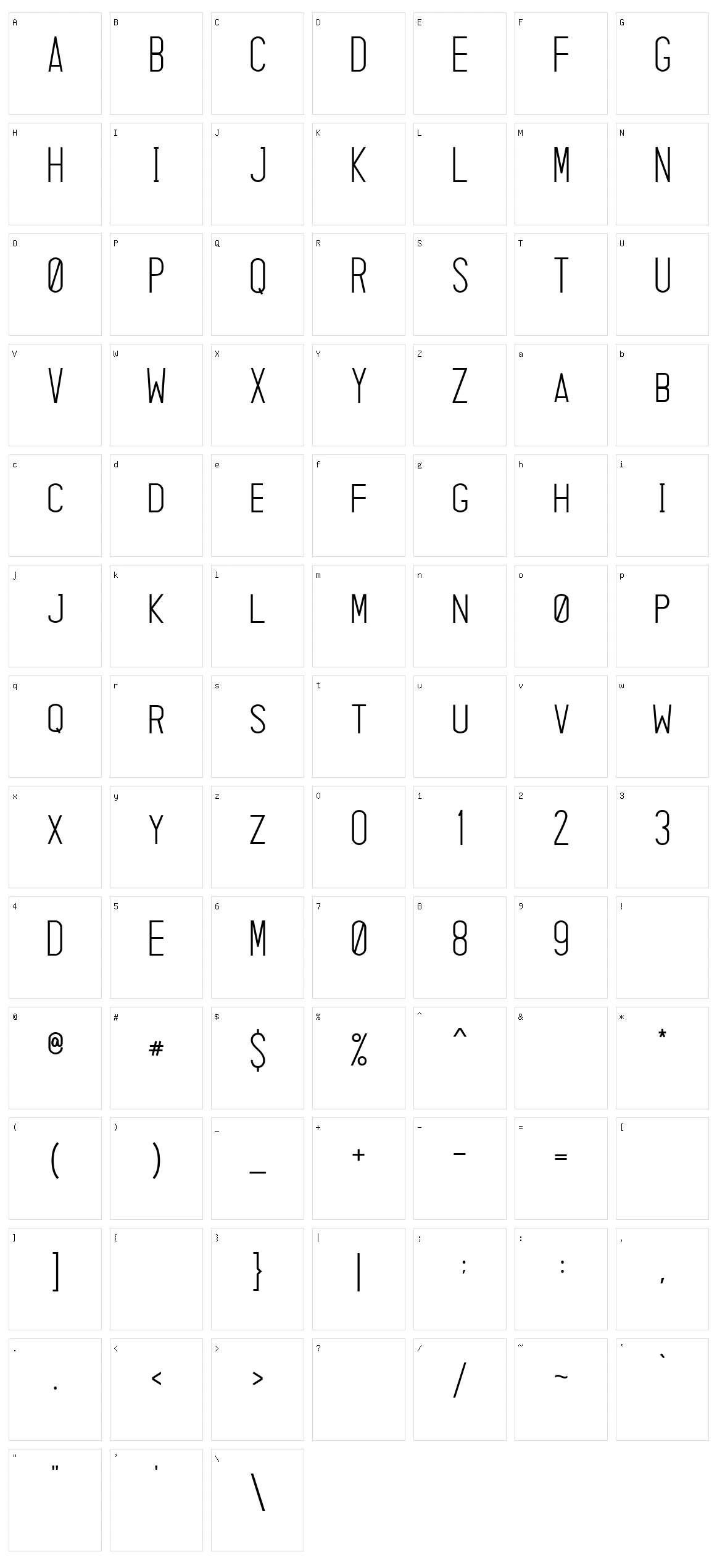
The free font Zeneca is carefully designed by Almaz Studio, showcasing a thoughtful balance of creativity and usability and falls under the Sans serif font style. When you download the ZIP file, it contains only 17.27 KB of font files, making it lightweight and quick to download. Please review the license details below to understand permitted usage and distribution rights. If license information is not available, we recommend using this font for personal projects only or contacting the author directly for commercial usage permissions.